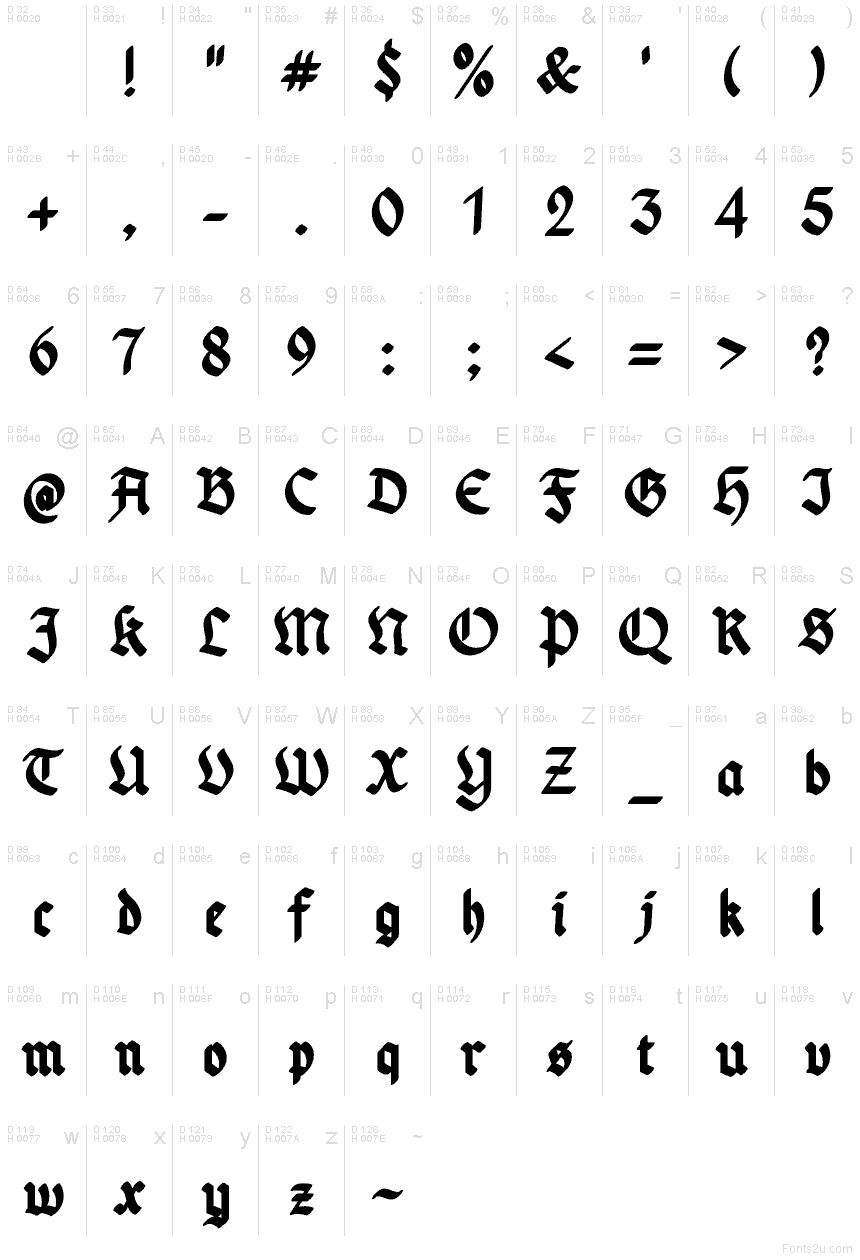
Glory Rose
Glory Rose font by Aji Waluyo is a free modern gothic typeface. It delivers the drama of blackletter without the usual squinting-sturdy verticals, crisp chiseled angles, and rounded inner curves keep the texture bold yet surprisingly legible. The strokes feel carved, almost inky, with compact rhythm that locks words together and gives headlines real weight.
Using Glory Rose, you can brand a craft beverage, push an esports logo, set a metal poster, dress a tattoo studio, or give streetwear labels and bar menus a gritty elegance. This free font thrives large, but a touch of extra tracking keeps it clear at midsizes. Pair with a clean geometric sans for body copy to let the gothic forms roar without crowding.